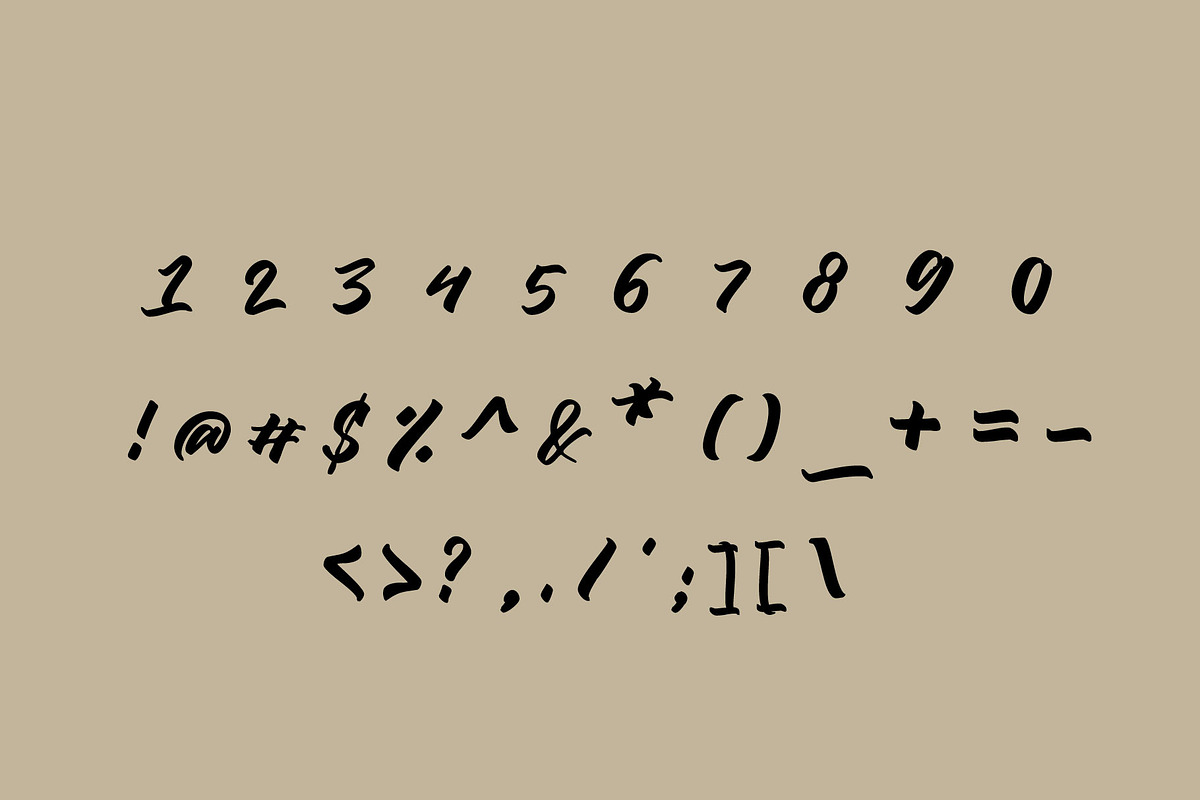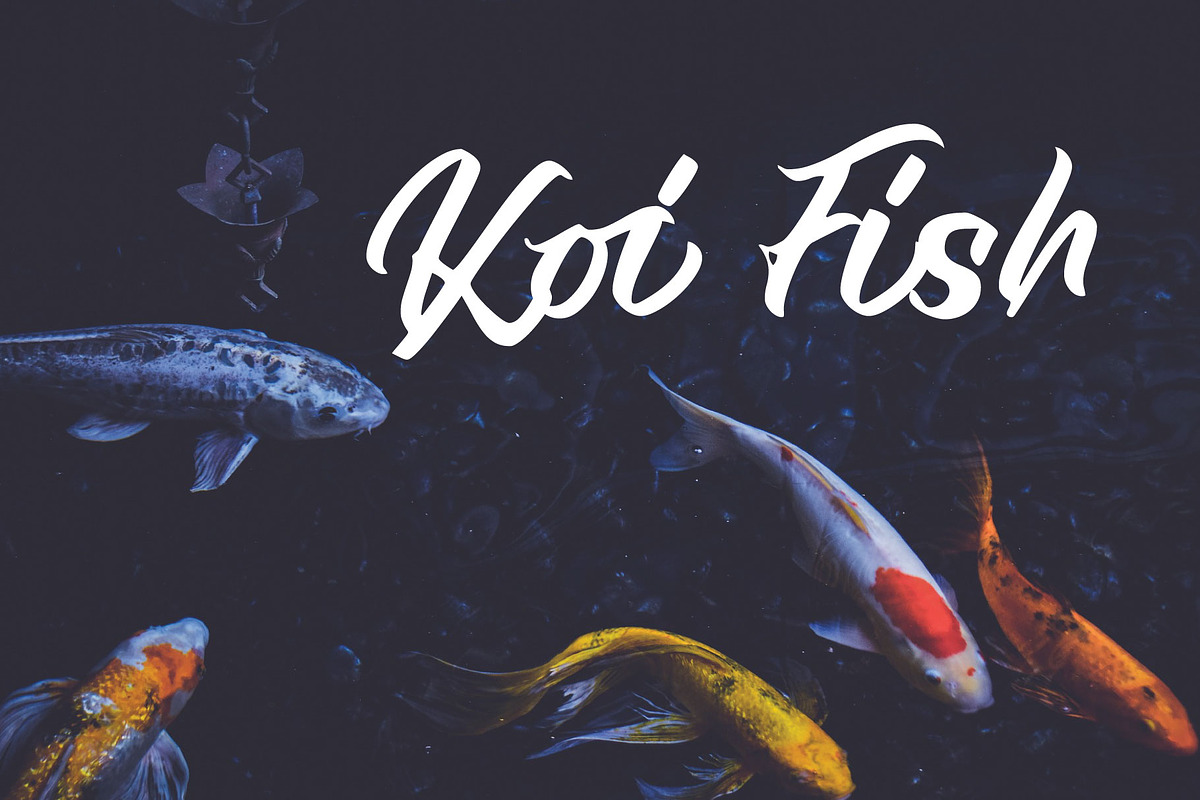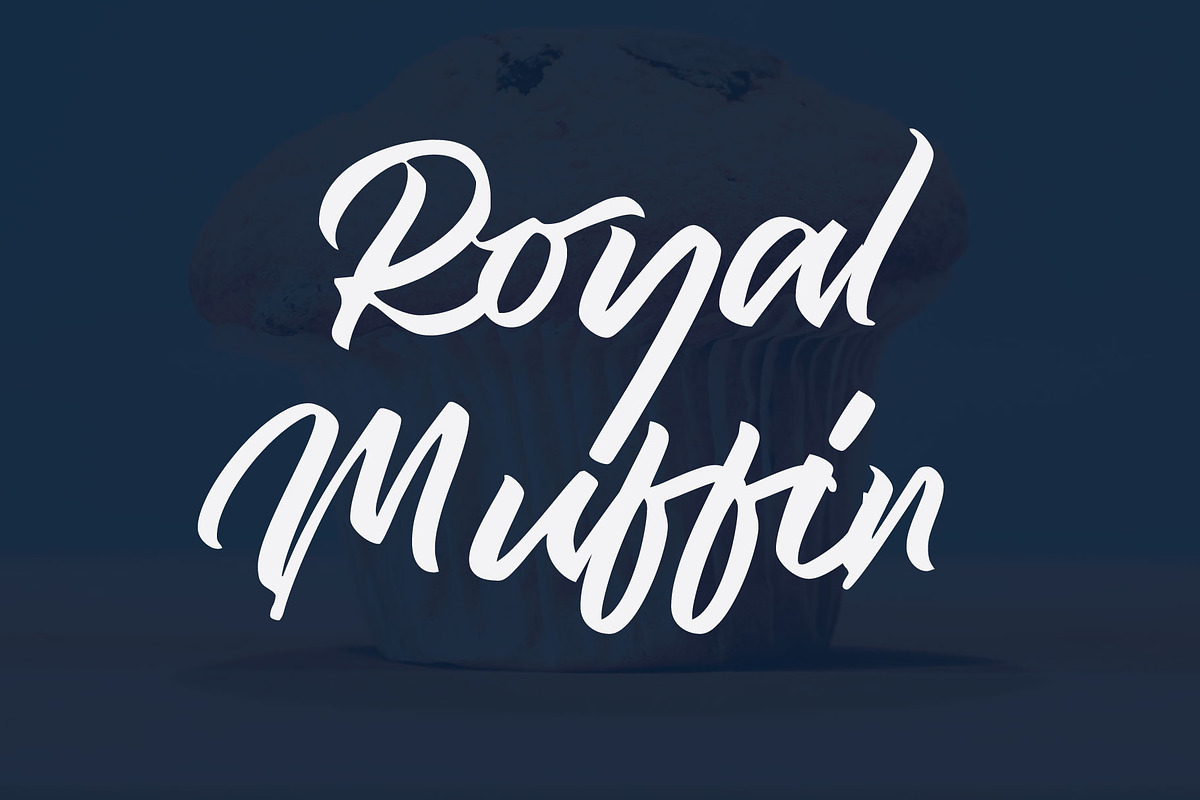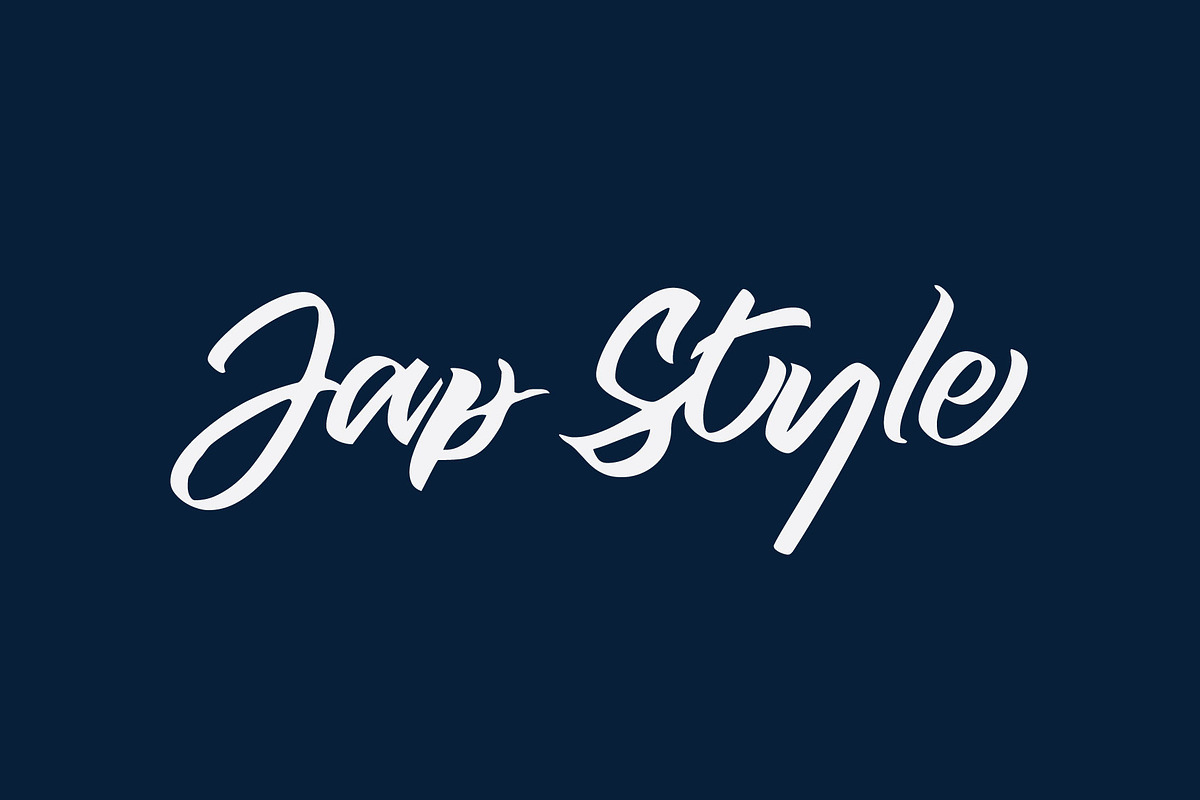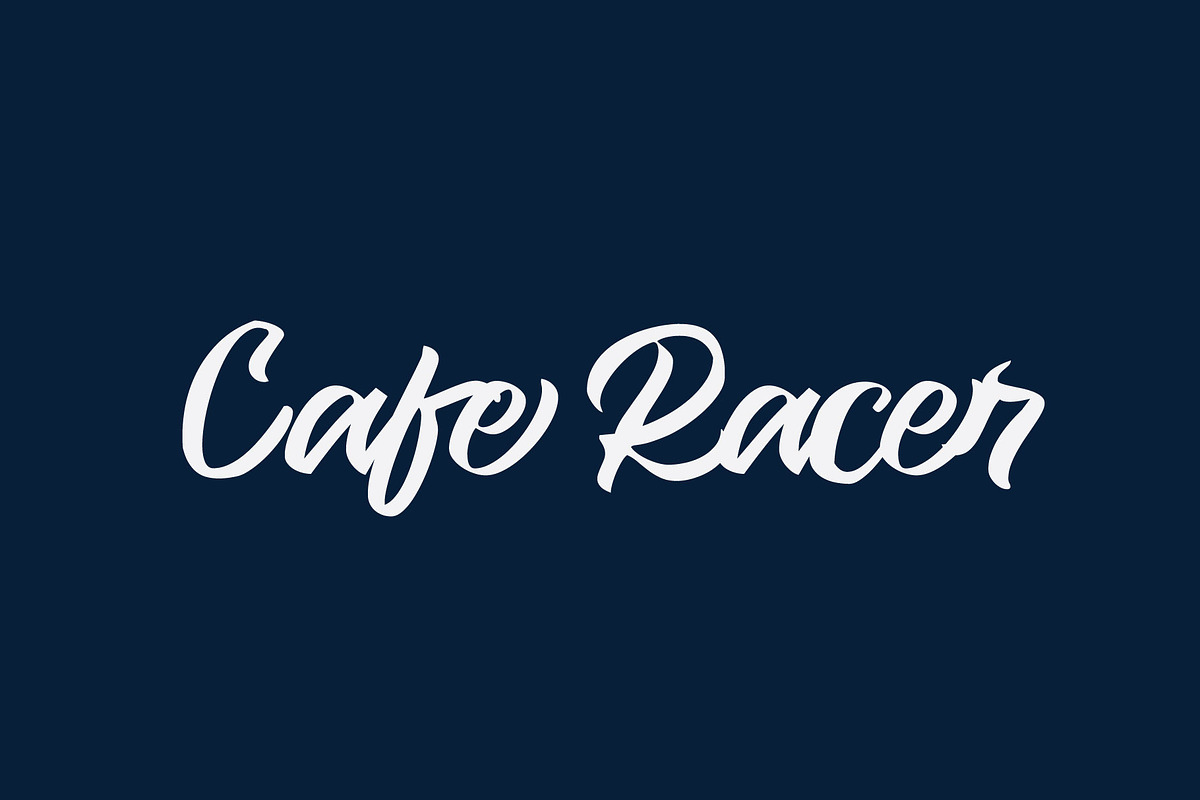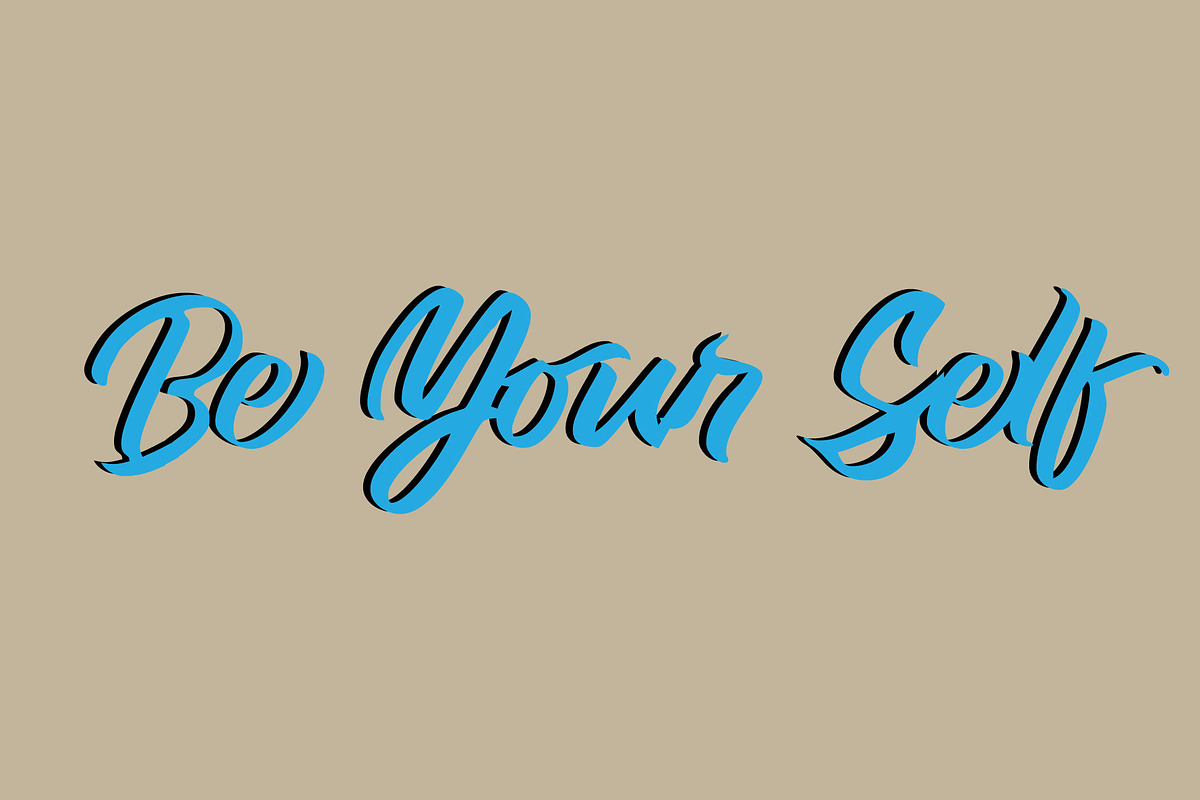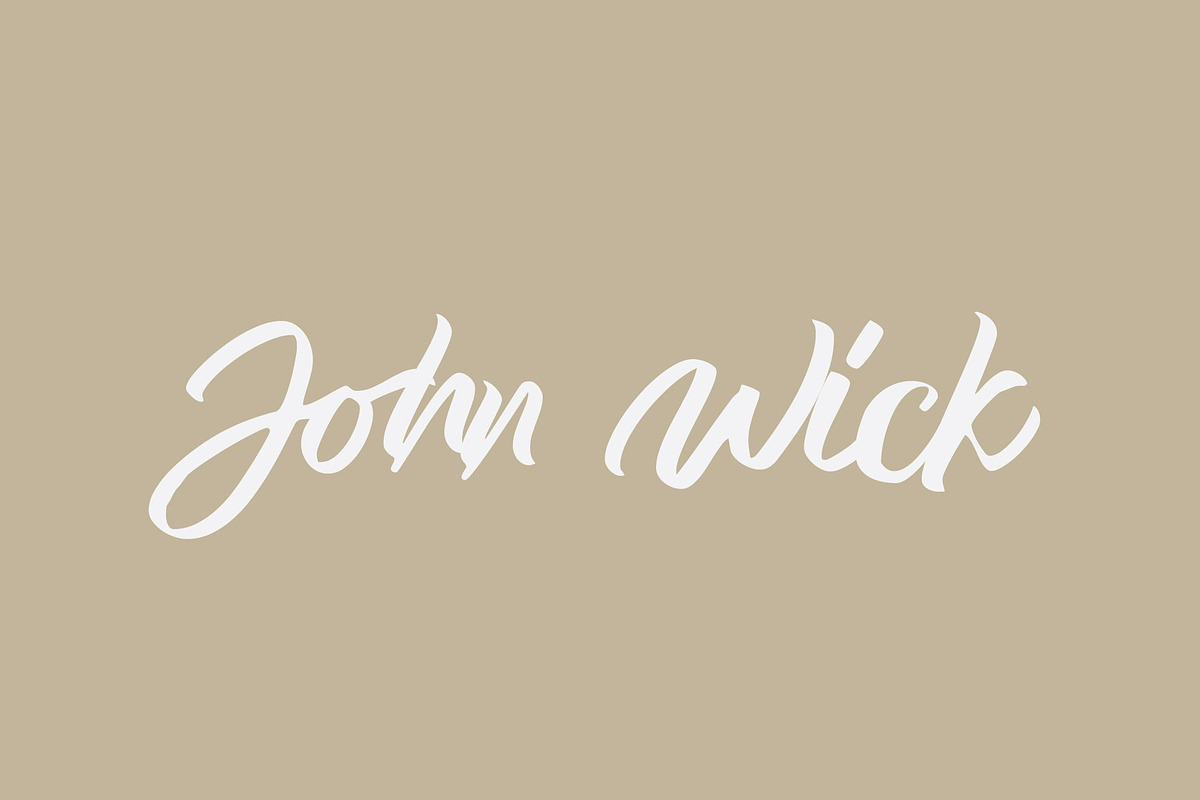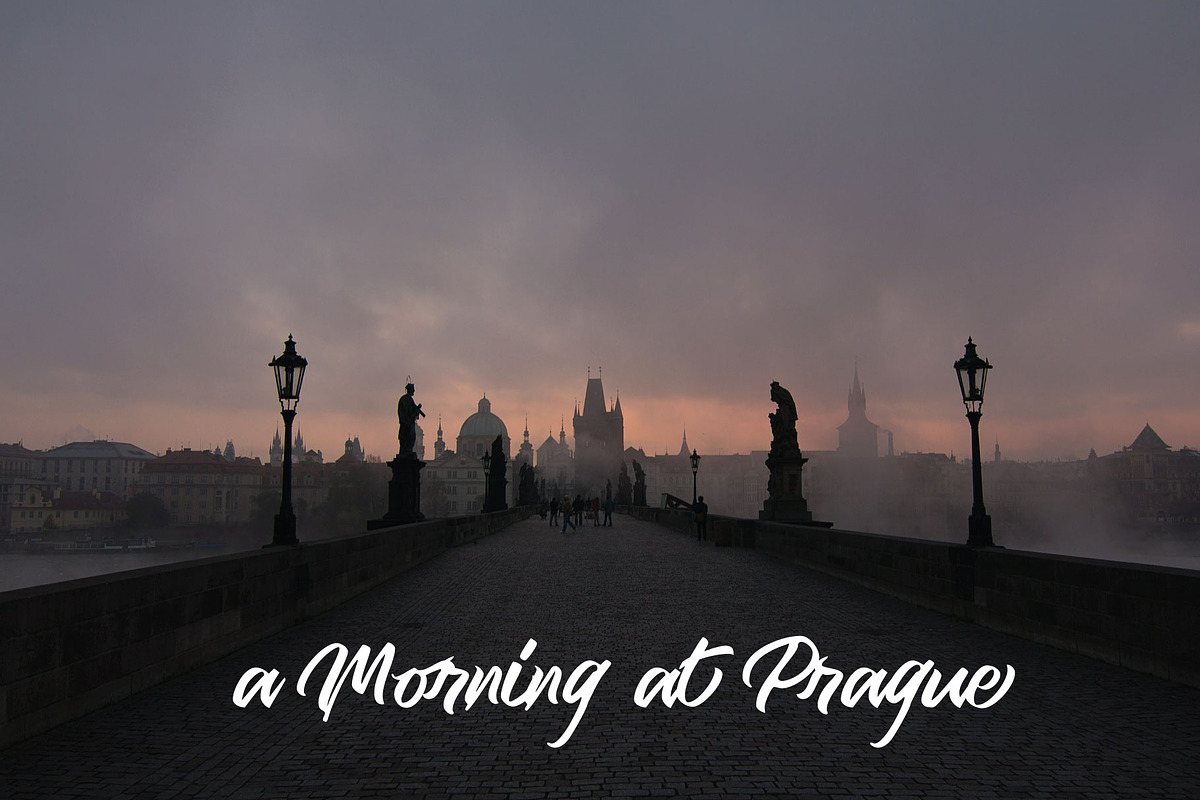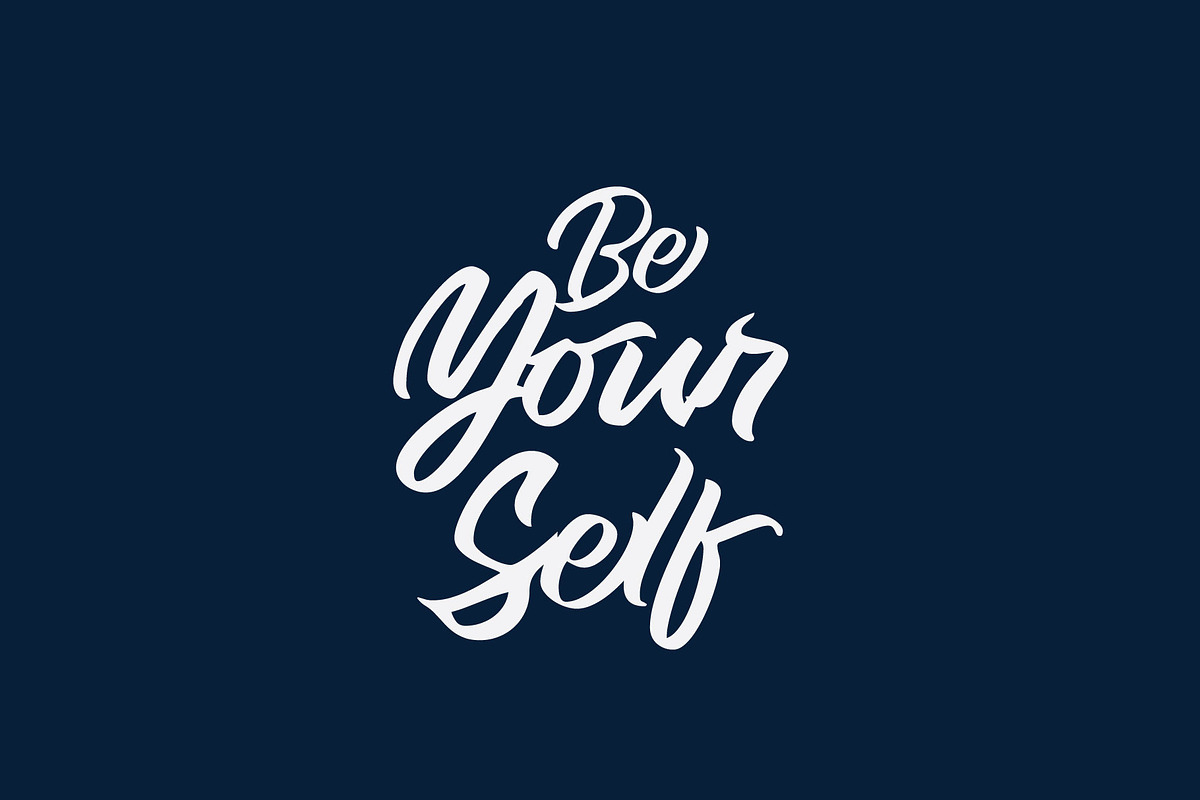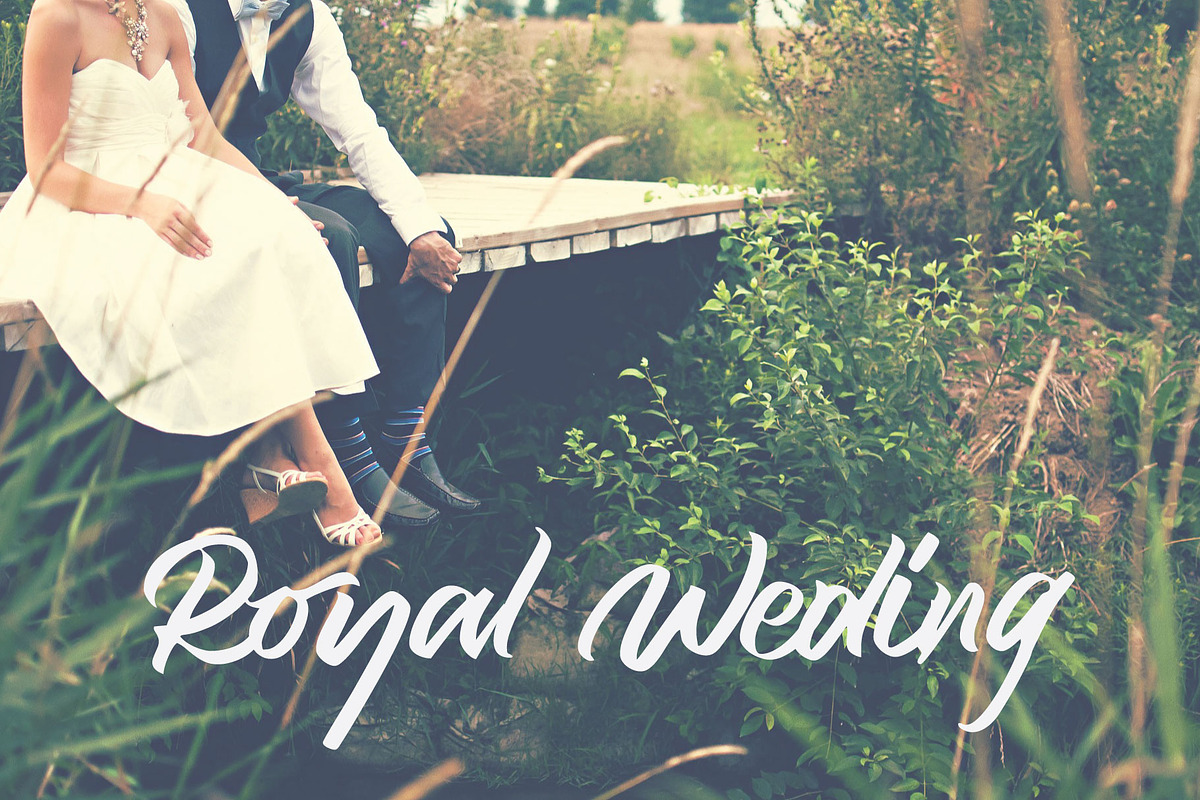
Royal Muffin
Royal Muffin is a classy handwritten font with a unique charm and a beautifully natural personality. Designed to bring warmth, elegance, and a handmade feel to your creative projects, this font is perfect for anyone looking to add a stylish and personal touch to their designs.
With its smooth handwritten appearance and graceful letterforms, Royal Muffin works beautifully for branding, logos, packaging, invitations, greeting cards, social media graphics, posters, stationery, labels, and craft projects. Its elegant yet approachable character makes it versatile enough for both modern and vintage-inspired designs.
Royal Muffin is especially suitable for boutique branding, fashion projects, beauty products, wedding stationery, handmade businesses, café packaging, and creative DIY projects. Whether you are creating a sophisticated logo or a charming product label, Royal Muffin will help your design stand out with its distinctive handwritten personality.
Let Royal Muffin add a touch of elegance, creativity, and handmade charm to your next design project!